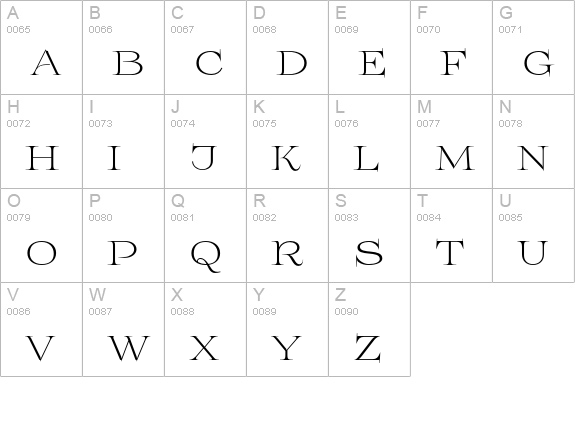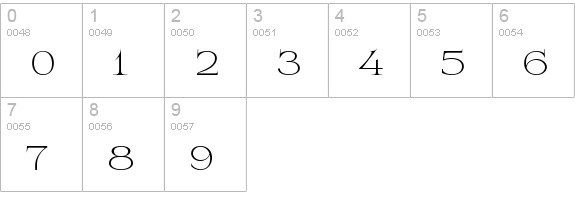
Prida01Light Font Details
Prida01Light font is a sleek and elegant typeface that exudes sophistication and modernity. With its clean lines and delicate curves, this font is perfect for creating a professional and refined look in any design project. The Prida01Light font features a balanced combination of thin and bold strokes, giving it a unique and eye-catching appeal. Its versatility allows it to be used in a variety of applications, including branding, advertising, editorial design, and more. What sets Prida01Light font apart is its accessibility. It is freely available to download at FontsMarket.com, making it a valuable resource for designers and creatives looking to enhance their work without breaking the bank. Whether you're a professional designer or a hobbyist, this font offers endless possibilities for creating stunning visuals. The Prida01Light font's legibility is another standout feature. Its carefully crafted letterforms ensure that every word is easily readable, even at smaller sizes. This makes it an ideal choice for body text in print and digital media. Additionally, the Prida01Light font supports multiple languages, making it a versatile option for international design projects. Its extensive character set includes accents, punctuation marks, and special symbols, ensuring that your message is effectively communicated no matter the language. Overall, Prida01Light font is a beautifully designed typeface that combines elegance with functionality. Its free availability at FontsMarket.com allows designers to access this high-quality font without any barriers. Whether you're working on a professional project or simply want to add a touch of sophistication to your personal designs, Prida01Light font is the perfect choice.